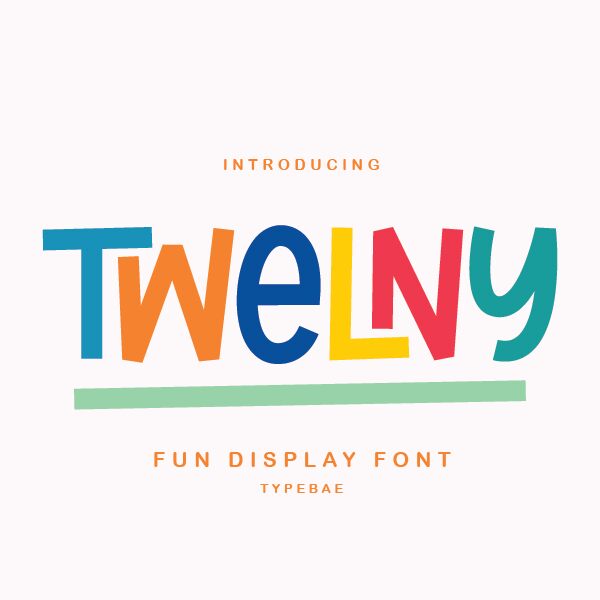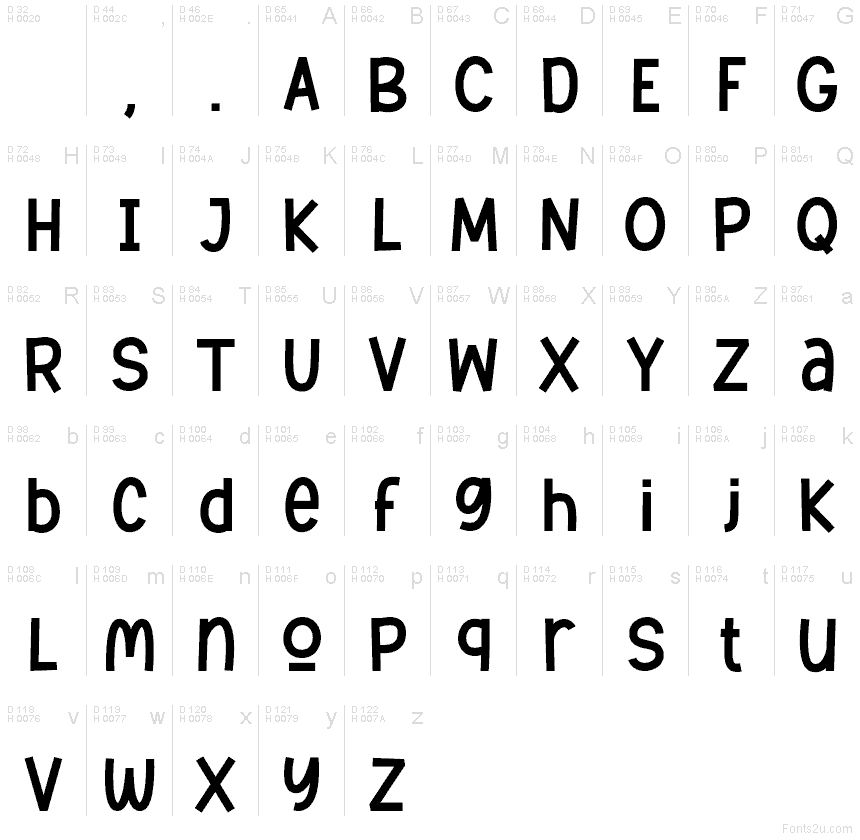
Twelny font by Typebae Foundry is a free comic display typeface with the loose, inked energy of a quick doodle on notebook paper. Its tall, slightly wobbly letters and chunky, brushy strokes feel playful and loud without getting messy, giving your titles a hand-drawn charm that still reads clearly at a glance.
Using Twelny, you can bring extra bounce to kids’ book covers, web comics, YouTube thumbnails, party invitations, stickers, and casual posters. This free font shines in big, bold sizes where its quirky rhythm can breathe; for body text, pair it with a simple geometric sans-serif to keep everything legible and balanced.